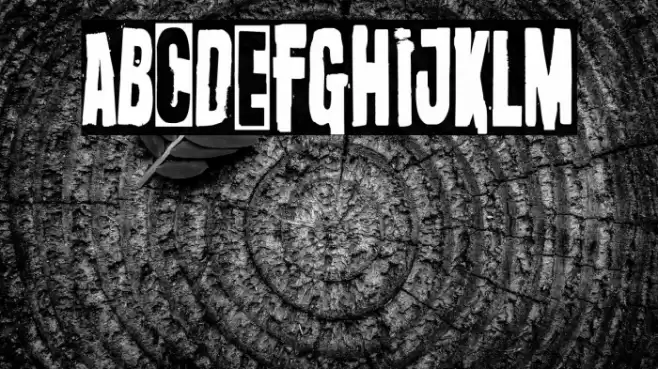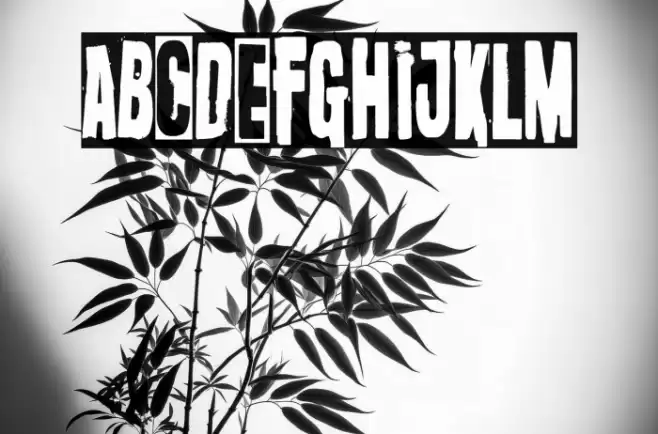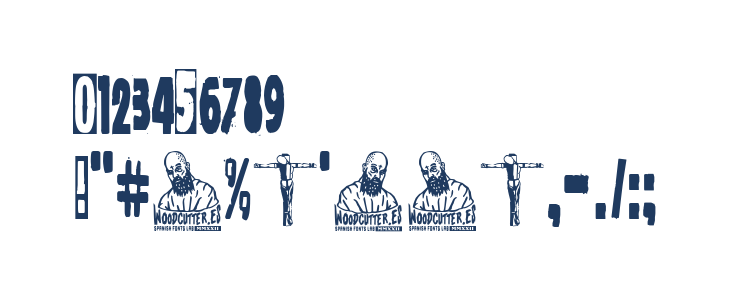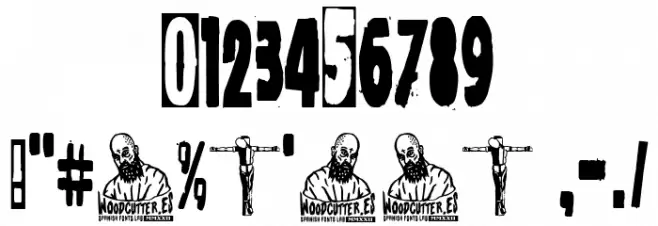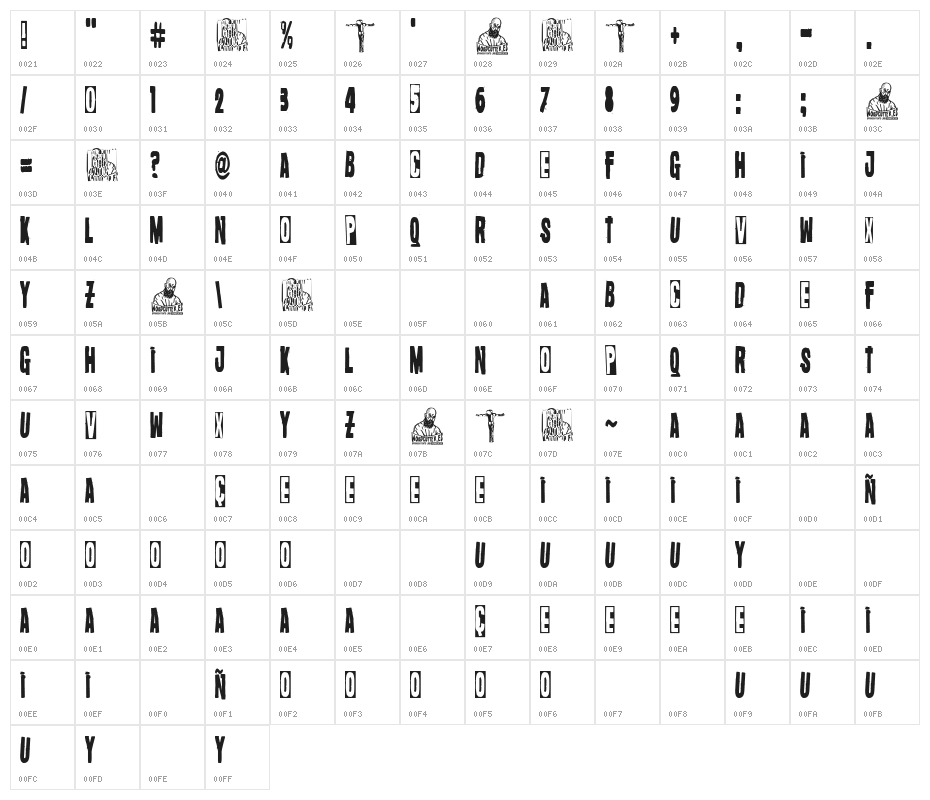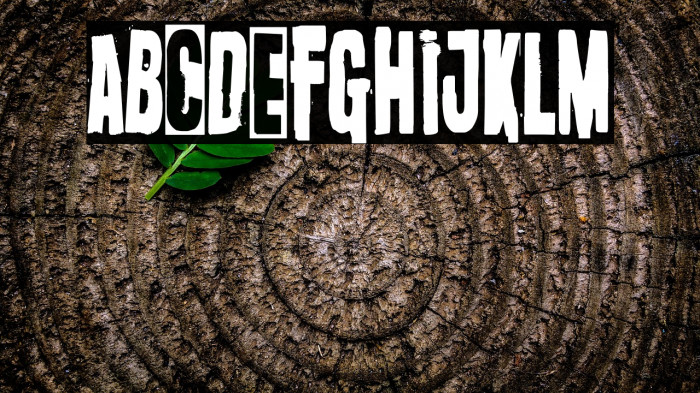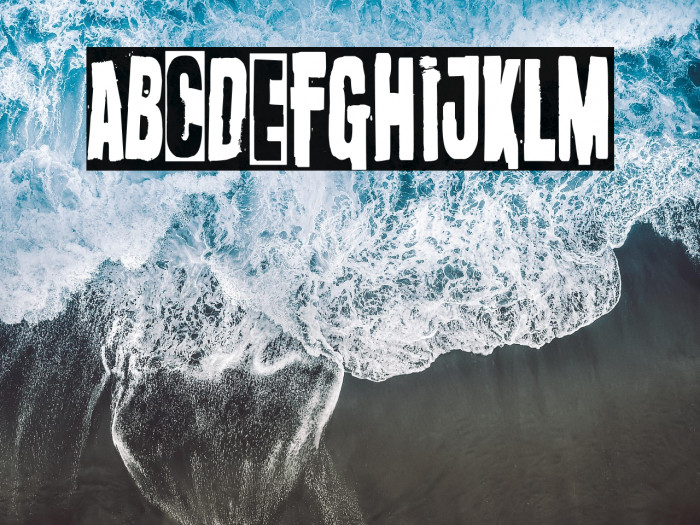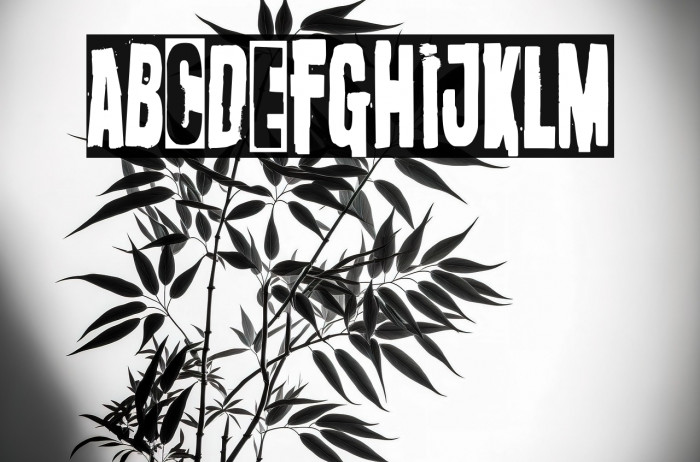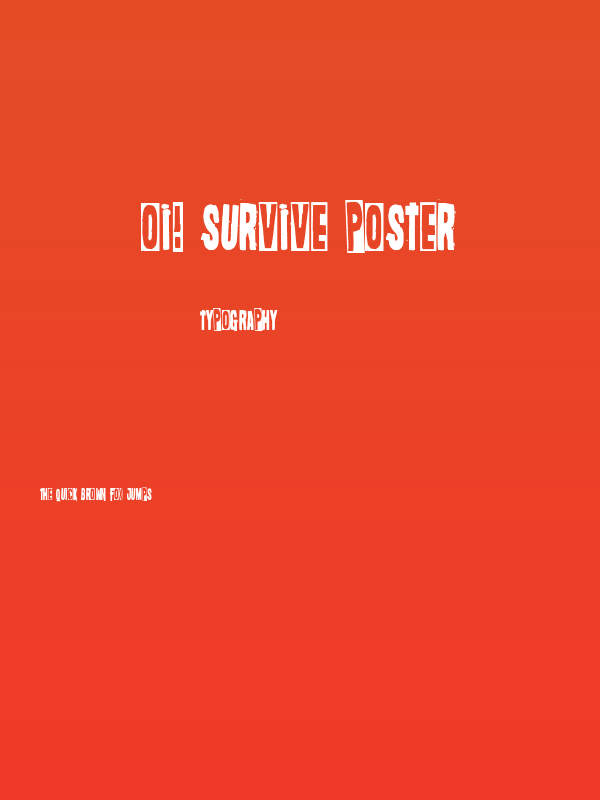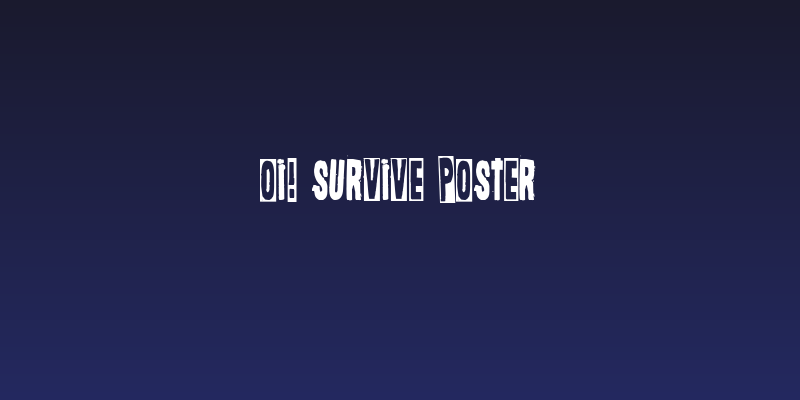
Oi! Survive Poster Font
Oi! Survive Poster Description
This font features a bold, distressed style with a mix of solid and outlined characters, giving it a rugged, grunge appearance. The uppercase letters are prominently bold, with some characters appearing as if they are stamped or printed with imperfections, adding to the distressed look. The numbers and special characters follow the same aesthetic, providing a cohesive appearance across all glyphs. The font has a strong visual impact, making it suitable for designs that require a bold statement or an edgy, urban feel.
A bold, distressed font with a rugged, grunge style from Uncategorized fonts.
- Font: Oi! Survive Poster
- Proposed Projects: Ideal for music posters, album covers, streetwear branding, or any project needing a bold, edgy look.
- Overall Style: Grunge, Urban, Edgy
- Use Case: Headlines, Posters, Branding